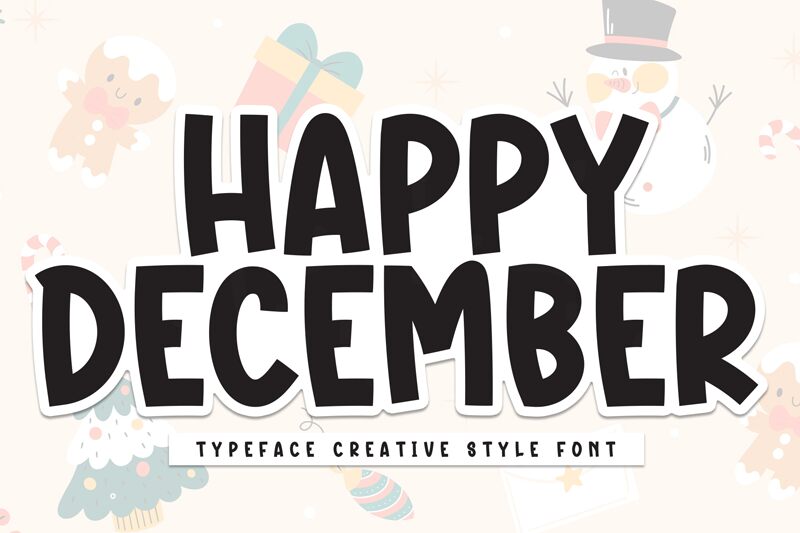
Happy December
Happy December font, a charming creation by Scratchones, brings a quirky and modern flair to your designs. With its bold presence and casual vibe, this display typeface exudes youthful energy, making it perfect for brands that seek a fun and inviting look.
Its versatility shines through in use cases such as logos, packaging, signage, posters, quotes apparel printings, headings web designs brochures flyers invitations other identity items branding advertising billboards social media contents blog graphics video titles book covers album arts product labels any project aiming to stand out with a unique design touch.